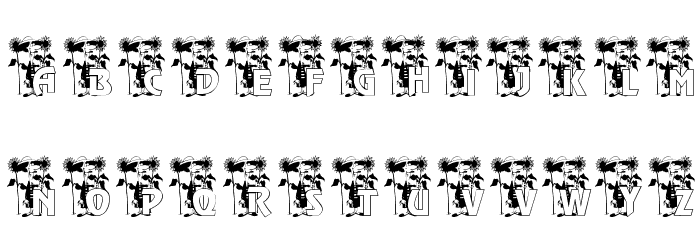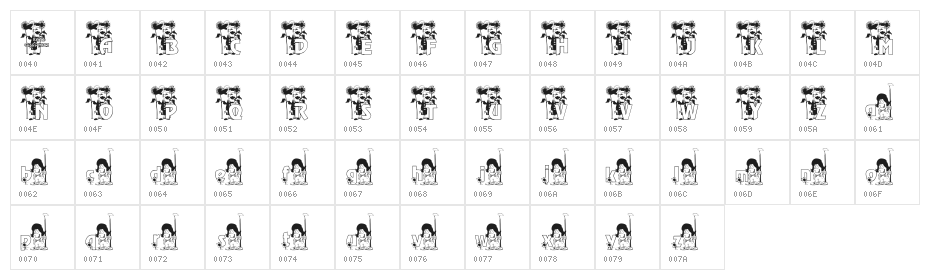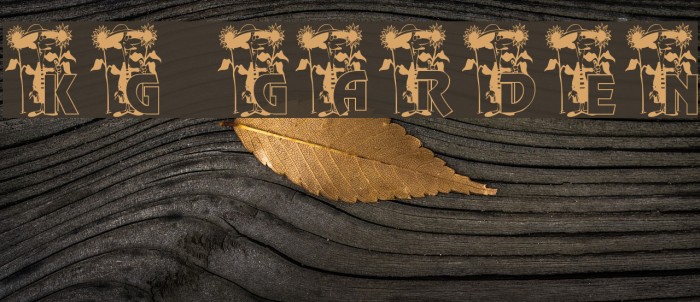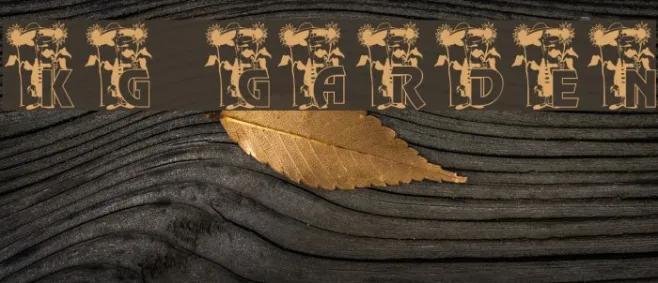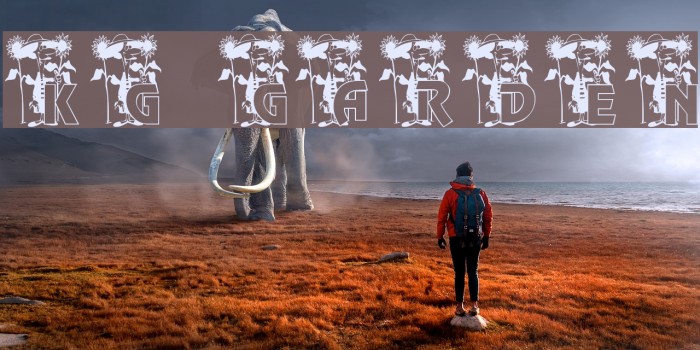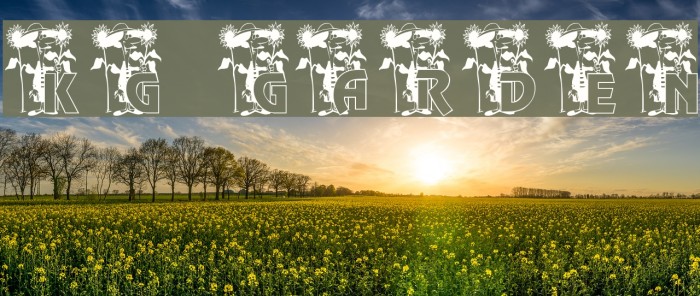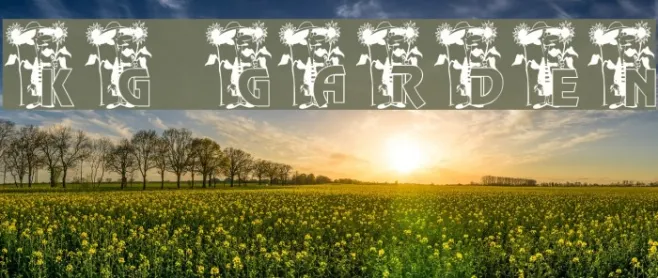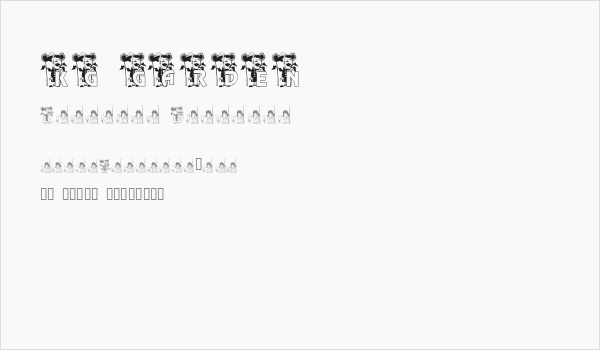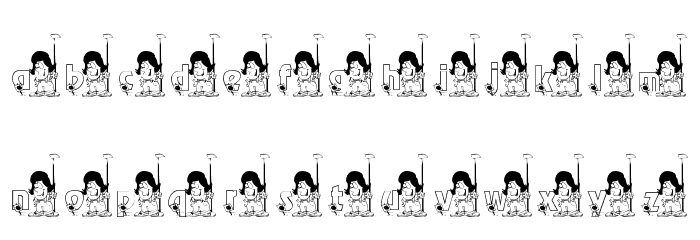
KG GARDEN Font
KG GARDEN Description
This whimsical decorative font features playful garden-themed illustrations integrated into each character. The uppercase letters are adorned with detailed plant and tree motifs, creating a lively and imaginative appearance. The lowercase letters incorporate charming gardening scenes, adding a touch of storytelling to the design. The font's unique style makes it ideal for projects that require a fun and creative touch, such as children's books, playful invitations, or garden-themed events. Its intricate details and artistic flair make it stand out, offering a delightful visual experience.
| Proposed Projects | Ideal for children's books, playful invitations, garden-themed events, and creative branding. |